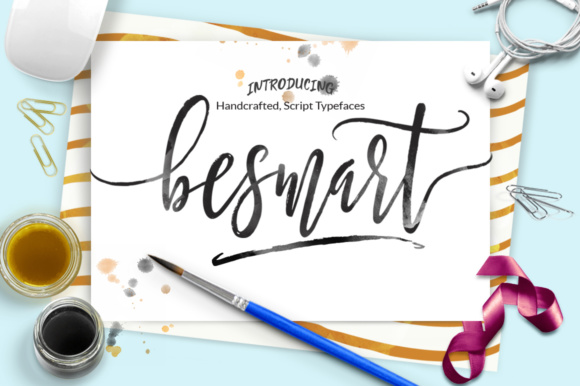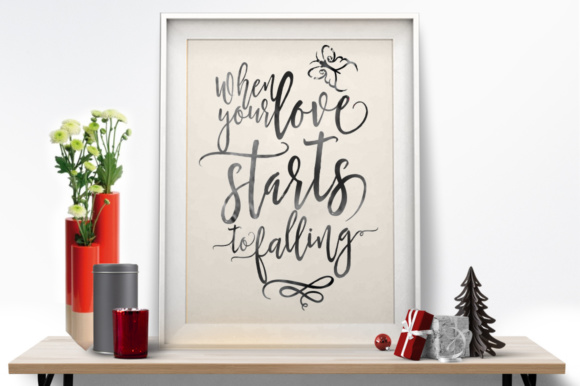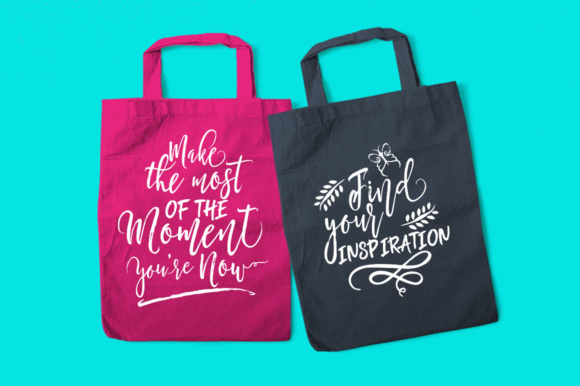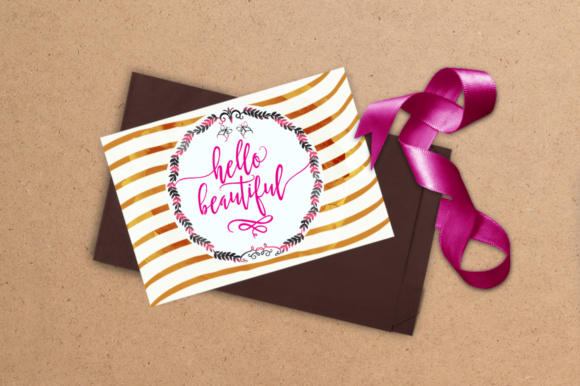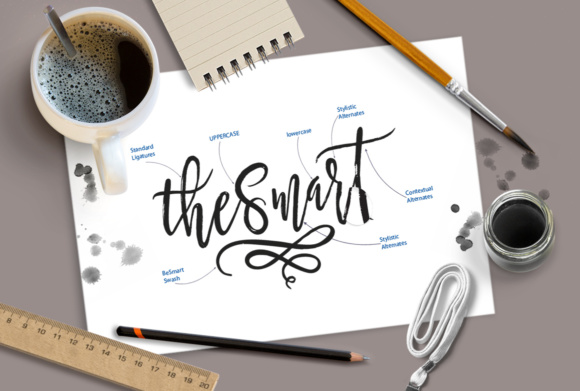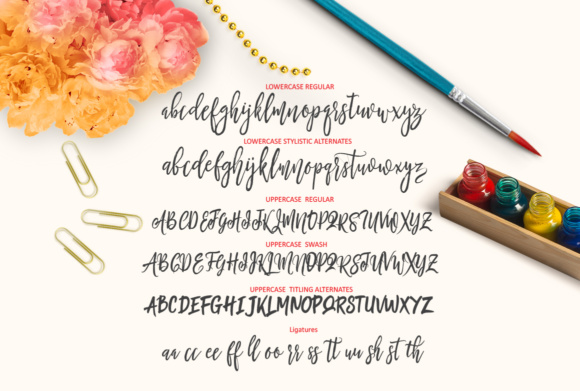
HomeScript FontsBe Smart Script Fonts Be Smart Script Font FacebookXPinterestWhatsApp Be Smart Script Font Poster 2 Be Smart Script Font Poster 3 Be Smart Script Font Poster 4 Be Smart Script Font Poster 5 Be Smart Script Font Poster 6 Be Smart Script Font Poster 7 About Be Smart Script Font Be Smart Script is a handmade font made with a brush. DOWNLOAD NOW People also explored Bohela Font Falesia Font Holiday Hello Children Font Attack Molens Font Blooming Font Carllitos Font Samantha Font Penmanship Birds Font 271 0 TagsBe Smart Script Font Previous articleHarista Script FontNext articleStory Dream Script Font LEAVE A REPLY Cancel reply Comment: Please enter your comment! Name:* Please enter your name here Email:* You have entered an incorrect email address! Please enter your email address here Website: Save my name, email, and website in this browser for the next time I comment. Personal Use Free Baby Magnolia Personal Use Free Read more about this font Equestrain Personal Use Free Read more about this font Adlanta Personal Use Free Read more about this font The 10 Best Handwriting Fonts to Add Personality to Your Designs Blog Read more about this font BLOG Where to Buy American Fonts Online in 2024 Where to Buy American Fonts Online: The Ultimate Guide for 2024 Looking for the perfect American font to elevate your design projects? You're in the... The 10 Best Handwriting Fonts to Add Personality to Your Designs Transform Your Website: Elevate Your Typography with 7 Best Web Font Generators Modern Sans-Serif Fonts That Brands Love in 2025